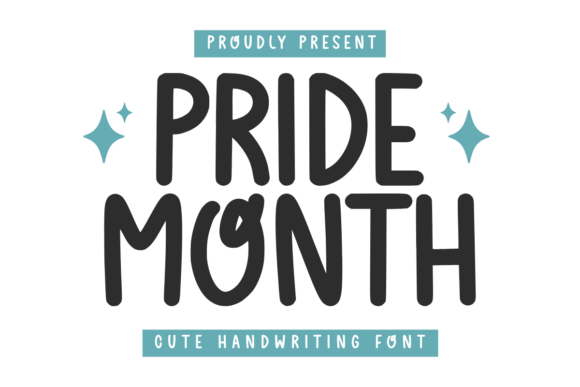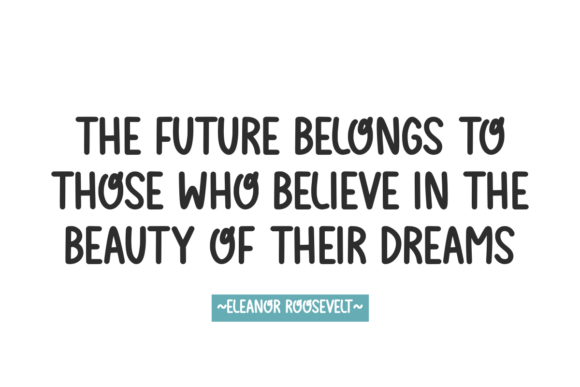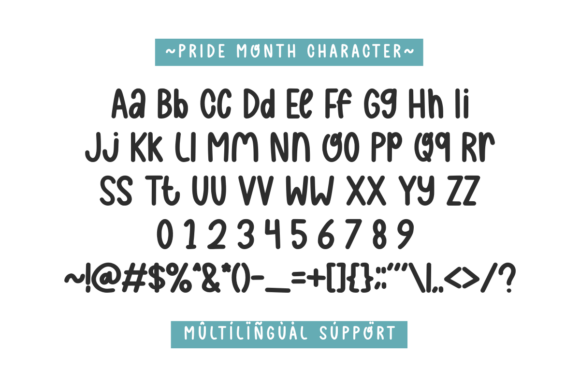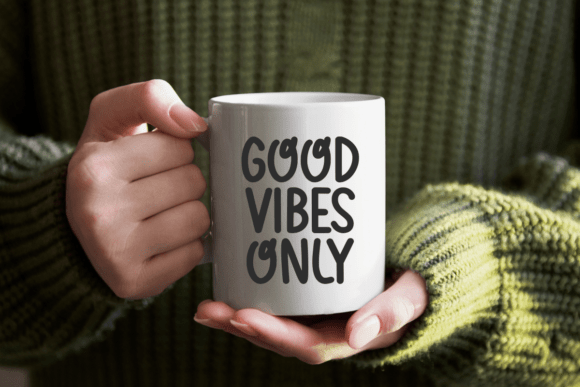
Pride Month Font: Cute Handwritten Font for Cricut & DIY Projects!
About the Pride Month Font
Explore the possibilities with Pride Month Font, a font that offers both beauty and functionality. Pride Month is a cute sans serif font. That is suitable for perfecting your creative projects such as stickers, notes, planners, SVG quotes, t-shirts, wall art, Cricut, craft, embroidery, posters, cards, and many other ideas.
Its playful, slightly rounded forms make it ideal for projects requiring a friendly and approachable aesthetic. Excellent choices include branding for LGBTQIA+ focused businesses, children’s products, or celebratory designs. However, its relatively low x-height makes it less suitable for extended body copy or UI elements where readability is paramount.
Pairing it with a clean sans-serif like Open Sans for body text or a classic serif like Garamond for a touch of sophistication would create visually balanced designs. For a bolder contrast, consider a geometric sans-serif like Futura or a more playful script font to emphasize the celebratory nature.
The overall personality is cheerful and celebratory, reflecting the spirit of Pride Month. Its lighthearted design works best in applications where visual impact and positive energy are prioritized.